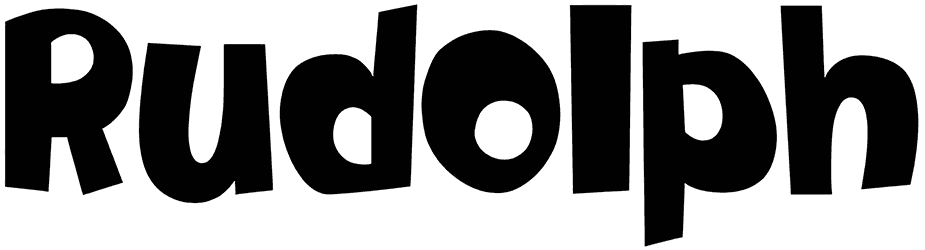
Rudolph Font
A creative and playful design will be more impressive when you use a cute letterform, and this cartoon font here can catch your eye. Not only is it bold and sweet in form, but also its good coverage of characters makes it an apt item for varied designs. Use the Rudolph font for a kindergarten poster, a kids’ book, and so forth, and surprise your followers.